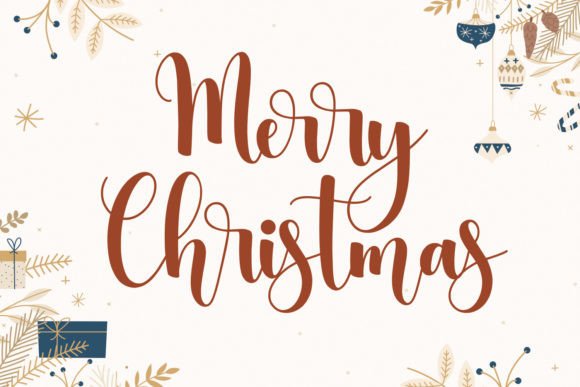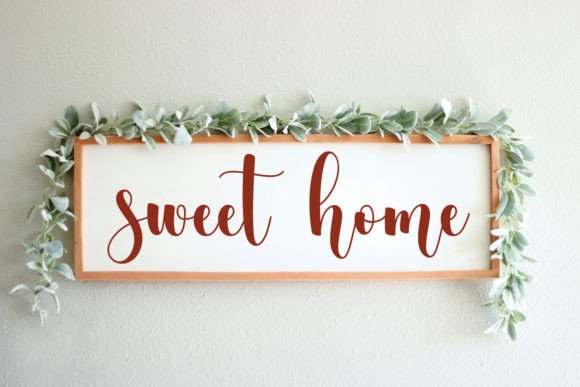
Mistletoe Font
Introducing Mistletoe – a charming script font that captures the essence of elegance and playfulness. Its graceful curves and gentle strokes evoke a sense of warmth, making it perfect for projects that require a touch of whimsy. Mistletoe’s delightful swashes add a unique flair, infusing your designs with a touch of sophistication that’s bound to captivate your audience. Whether you’re working on invitations, branding, or creative displays, Mistletoe’s versatility will undoubtedly elevate your creations to a new level of enchantment.